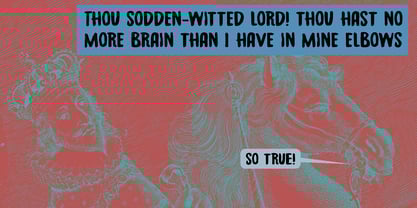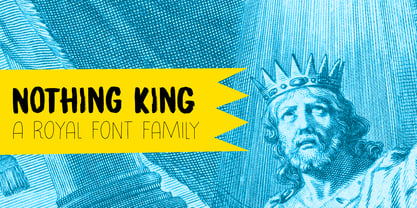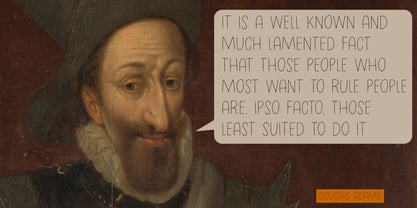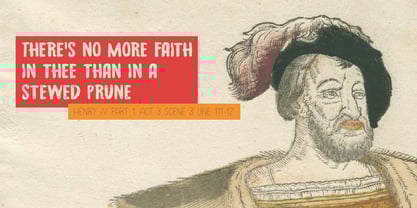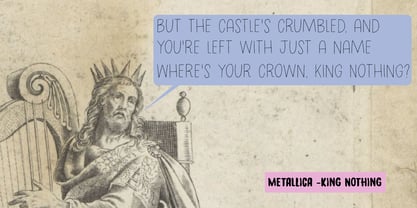
Nothing King
by Hanoded
The Nothing King Font Family was designed by David Kerkhoff and published by Hanoded. Nothing King contains 4 styles and family package options. More about this family
Nothing King is a wonderful little font family, consisting of two handmade typefaces: a light, thin version and a rough, brush font. Both fonts are designed to complement each other when used in your designs. The name was inspired by both (very disturbing) recent events and a Metallica song called King Nothing (from their album ‘Load’). If you buy my fonts regularly, you’ll probably know that I often make references to (Death) Metal, as it is my music of choice!